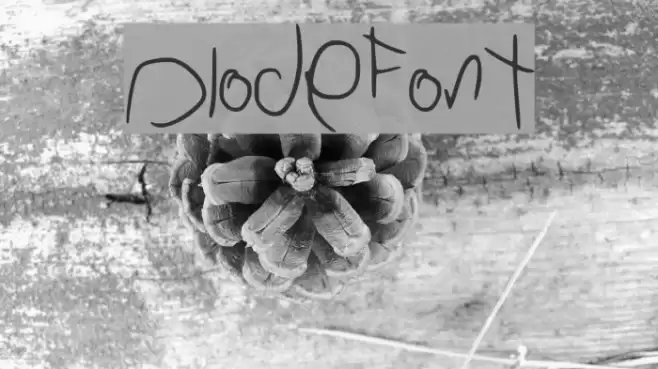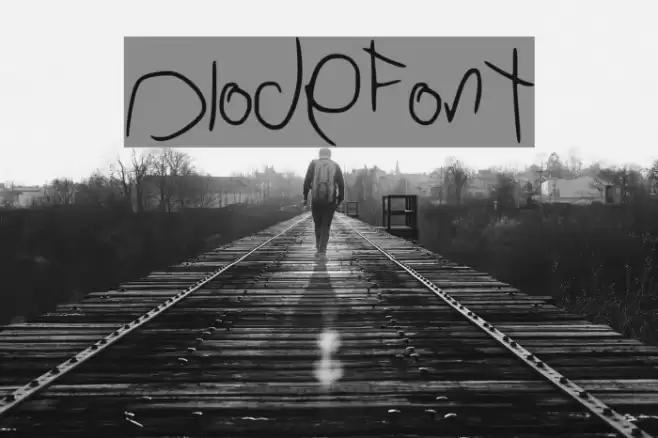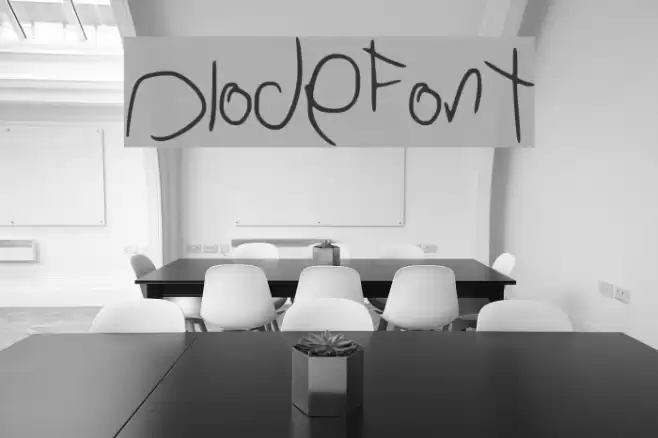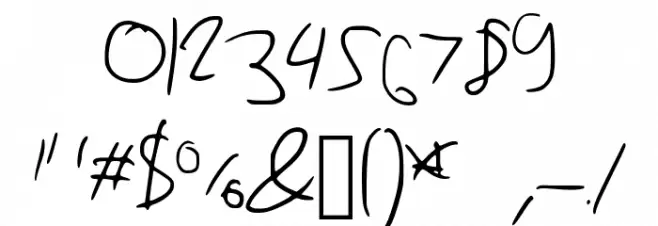
DiodeFont Font
DiodeFont Description
This font features a playful and casual handwritten style, characterized by its loose, flowing strokes and slightly irregular letterforms. The uppercase and lowercase letters maintain a consistent style, with a slight tilt and varying line thickness that adds to its informal charm. The numbers and special characters follow the same aesthetic, making the font cohesive and visually appealing. Its organic and spontaneous appearance makes it suitable for projects that require a personal touch or a relaxed vibe.
A playful, casual handwritten font with flowing strokes and irregular letterforms from Handwritten fonts.
- Proposed Projects: Ideal for greeting cards, personal notes, informal invitations, and creative projects that benefit from a personal, relaxed touch.
- Overall Style: Casual
- Use Case: Logos, Headlines, Informal Text